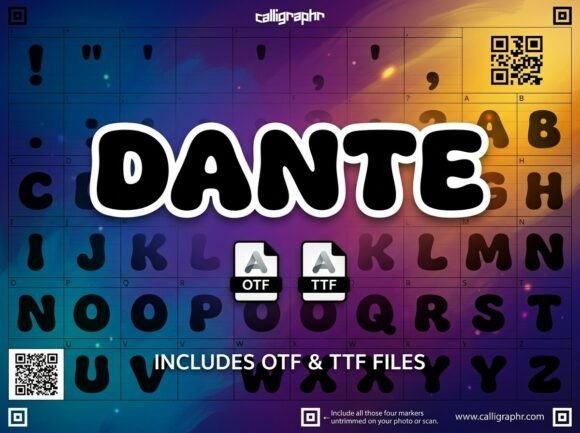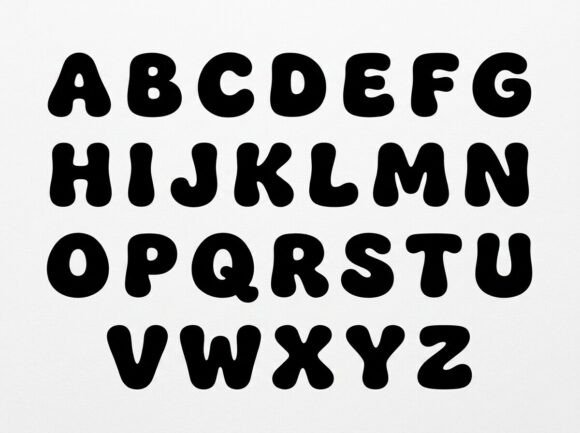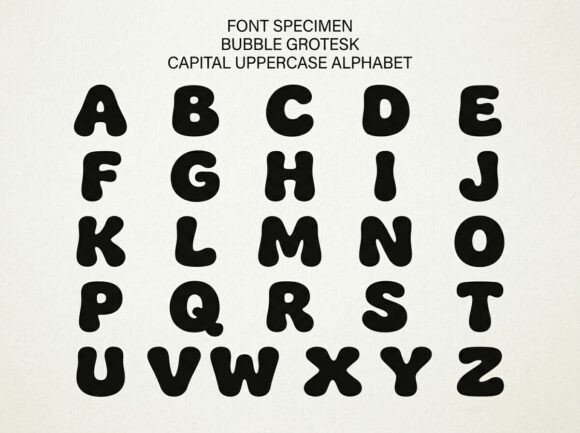
Discover the Playful Power of Dante Font
I’ll never forget the design project that led me to discover Dante Font. I was working on a branding campaign for a trendy new snack company, and I needed a font that would make their packaging stand out on crowded store shelves. After hours of scrolling through font libraries and testing out different options, I stumbled upon Dante – and it was love at first sight! 💡
This playful and bold display font immediately caught my attention with its chunky, rounded letterforms and unconventional, “squishy” silhouette. It radiates a sense of handcrafted joy and energy that’s perfect for high-impact visual storytelling. In this article, I’ll share my honest review of Dante Font, provide a practical guide on how to use it, and explore similar fonts and alternatives.
- ✅ Unique and unconventional design that grabs attention
- ✅ Chunky, rounded letterforms with a friendly and approachable feel
- ✅ Massive visual weight and polished contours for high-impact visual storytelling
- ✅ Perfect for modern apparel logos, edgy snack packaging, high-energy gaming headers, and vibrant digital posters
Small Quirks and Limitations 🤔
- ⚠️ May not be suitable for body text or small font sizes due to its bold and chunky design
- ⚠️ Limited legibility at very small sizes or from a distance
A Practical Guide to Using Dante Font
If you love the playful and bold vibe of Dante Font, here are some similar fonts and alternatives you might enjoy:
- Komika: A fun and quirky comic book-style font with a similar chunky and rounded feel
- Bubblegum: A sweet and playful script font with a similar sense of handcrafted joy
- Great Vibes: A bold and energetic script font with a similar sense of energy and movement
- Astloch: A strong and rugged display font with a similar sense of boldness and impact
The Story Behind Dante Font
Dante Font was designed with the intention of creating a bold and playful typeface that would bring joy and energy to visual storytelling. Its chunky, rounded letterforms and unconventional silhouette make it perfect for designers who want to add a touch of whimsy and personality to their work. Whether you’re designing a logo, packaging, or a digital poster, Dante Font is sure to make a lasting impression.
Q: What type of projects is Dante Font best suited for?
A: Dante Font is perfect for high-impact visual storytelling projects, such as modern apparel logos, edgy snack packaging, high-energy gaming headers, and vibrant digital posters.
Q: Can I use Dante Font for body text or small font sizes?
A: Due to its bold and chunky design, Dante Font may not be suitable for body text or small font sizes. It’s best used for headlines or titles where you want to make a bold statement.
Q: Does Dante Font support OpenType features?
A: Yes, Dante Font supports OpenType features, including glyphs and stylistic alternates. You can access these features in compatible applications, such as Adobe Photoshop and Illustrator.